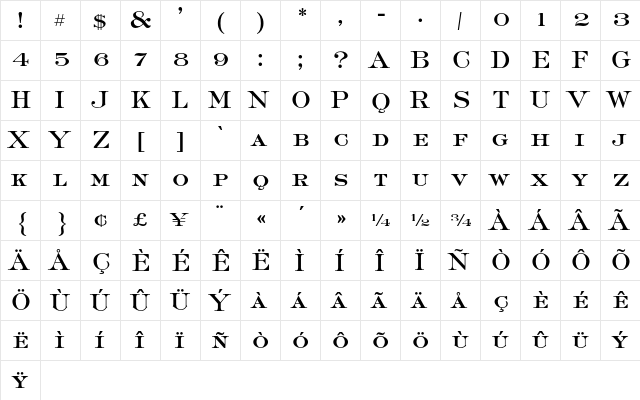
Roman Medium AT Regular
| Foundry | Adobe Systems Incorporated |
Design Context for Roman Medium AT Typeface
Roman Medium AT is a composed and adaptable typeface that performs quietly and consistently across a wide range of design contexts.
Pro Tip: Use Roman Medium AT in both headline and body roles to test its range before committing to a single application.